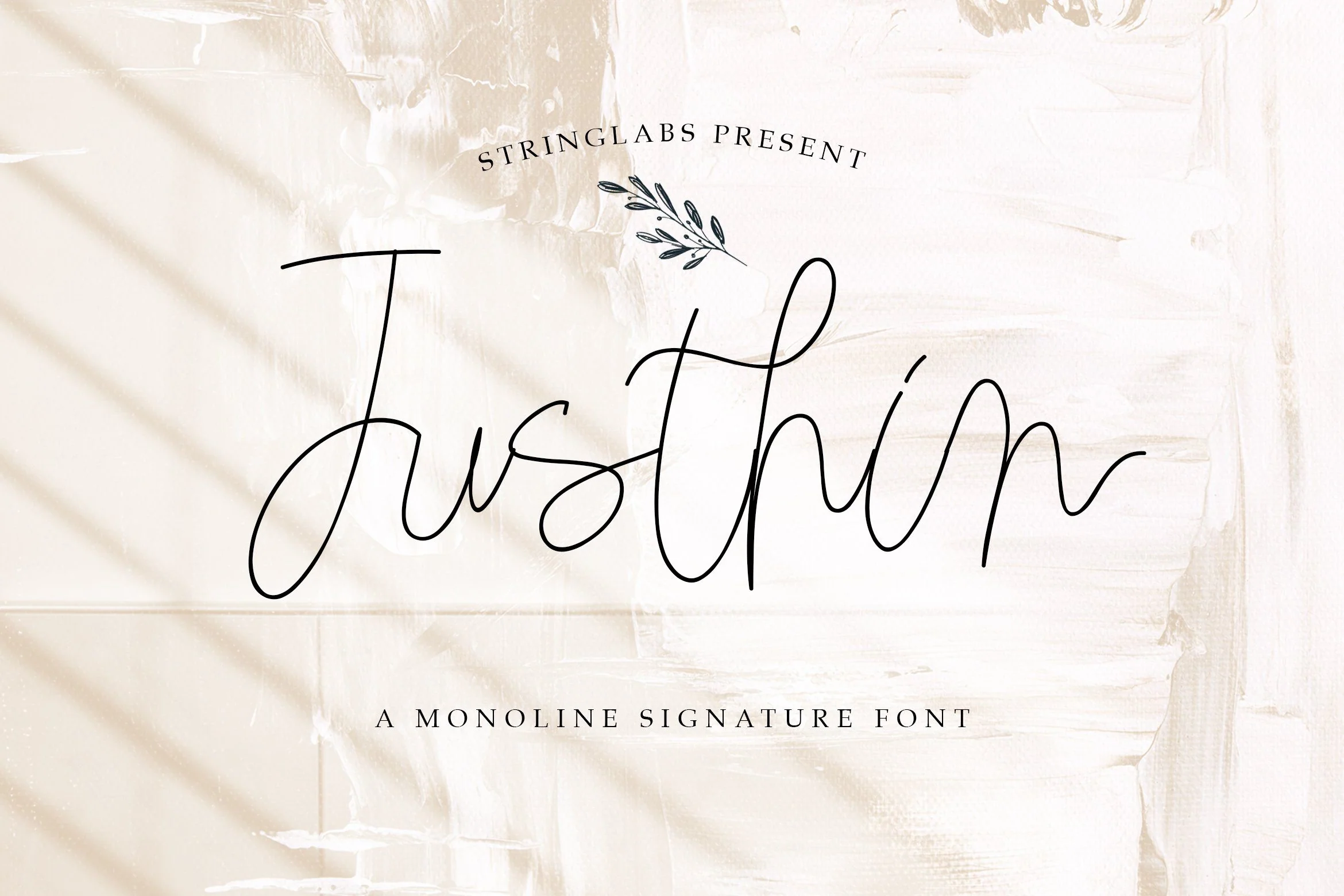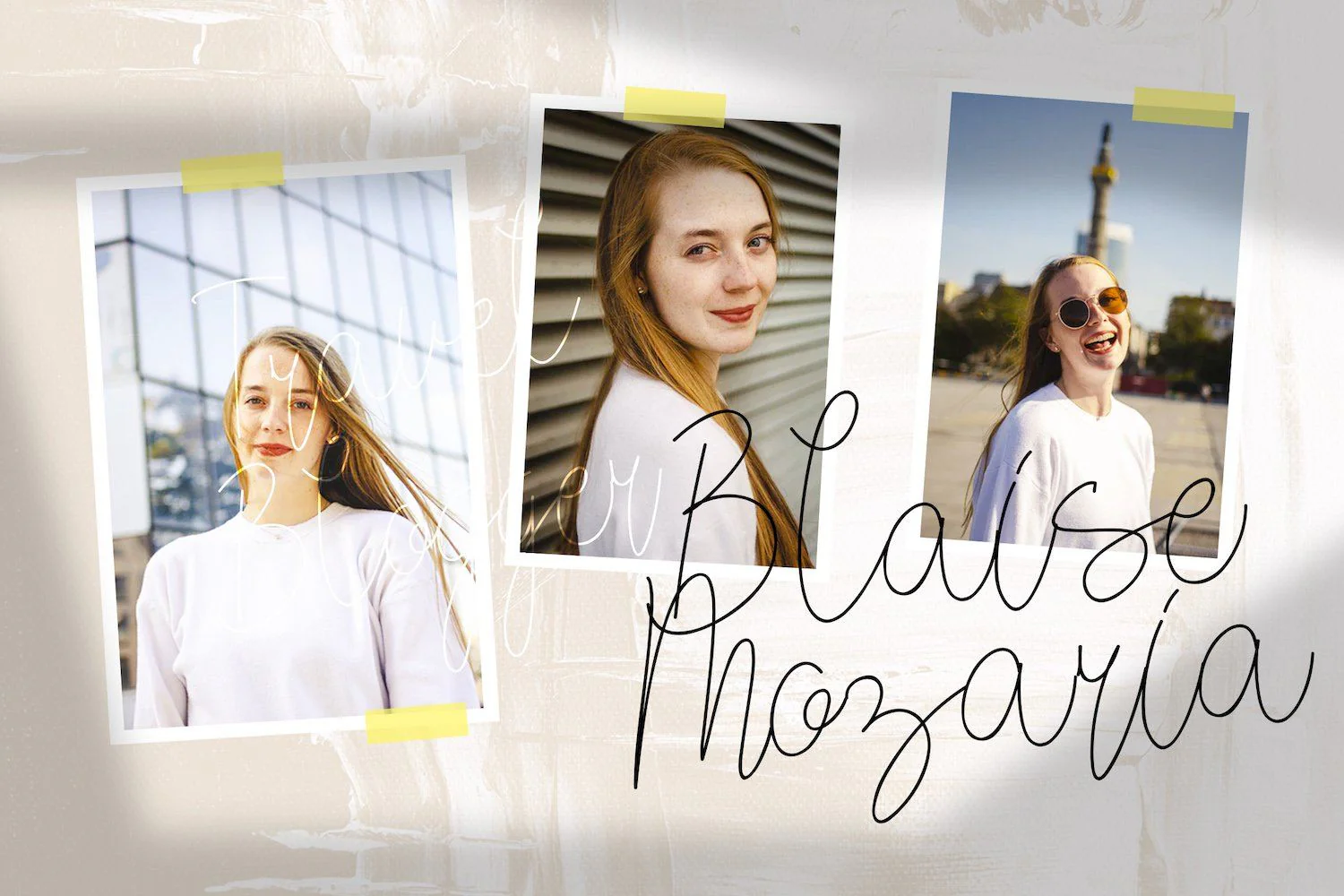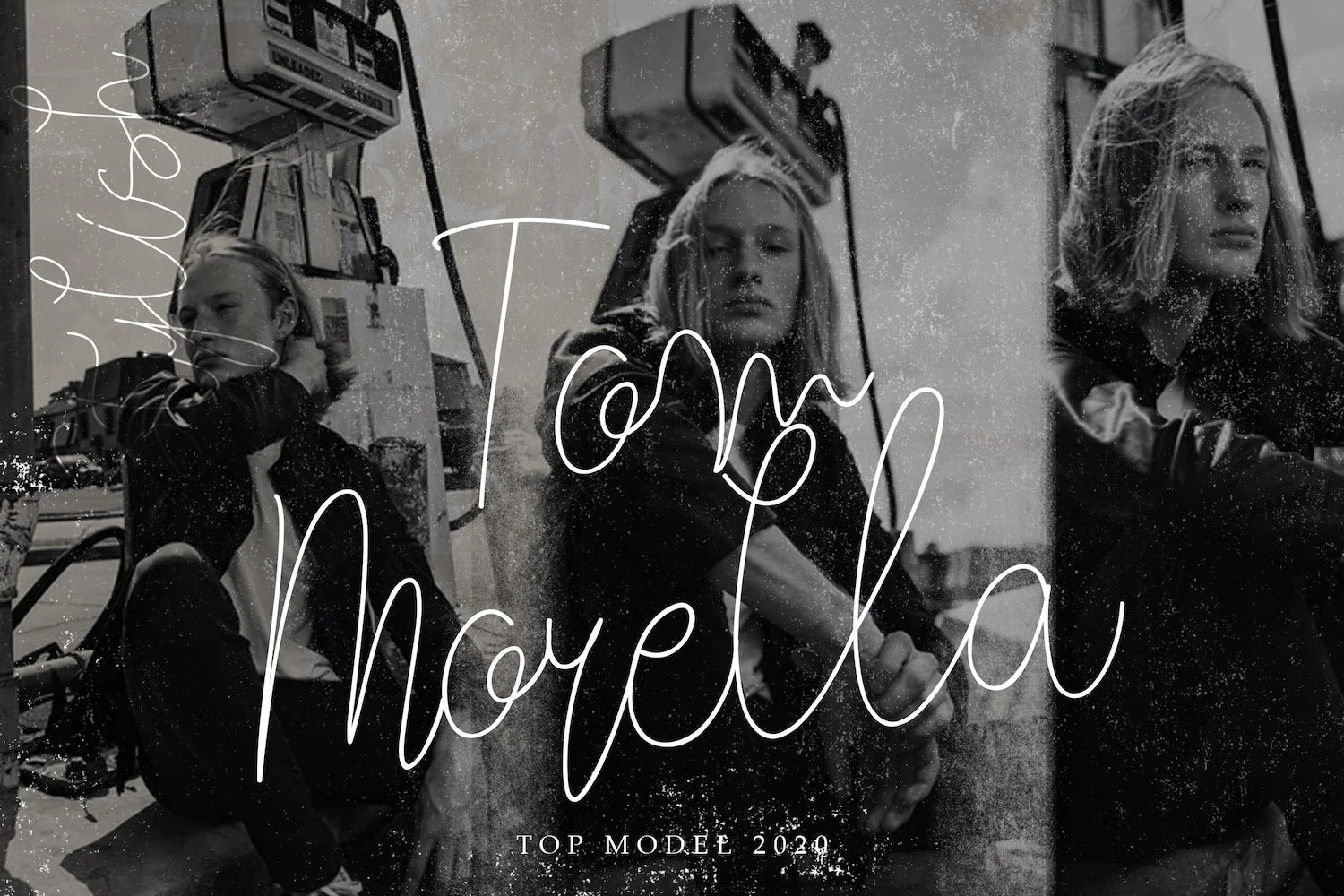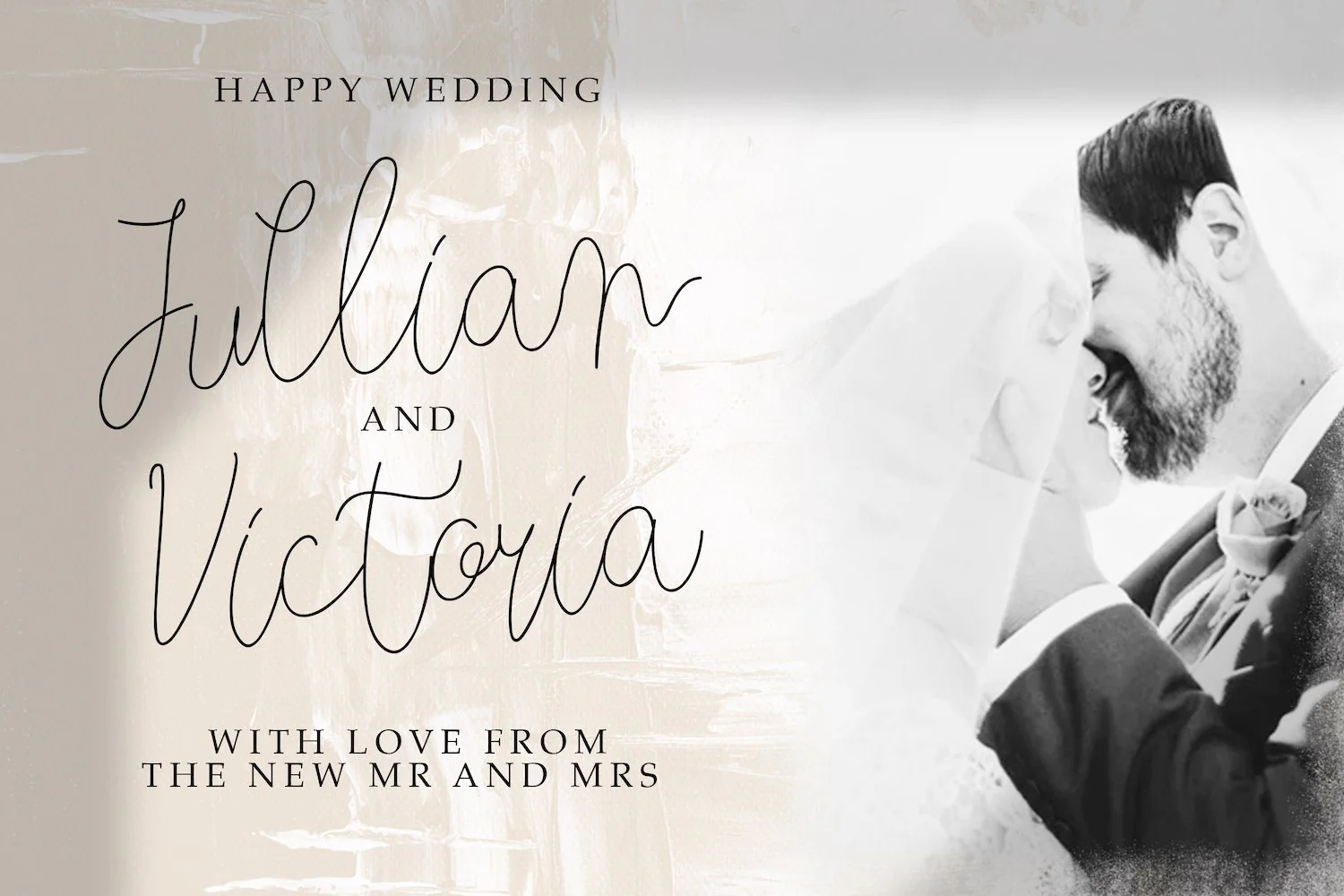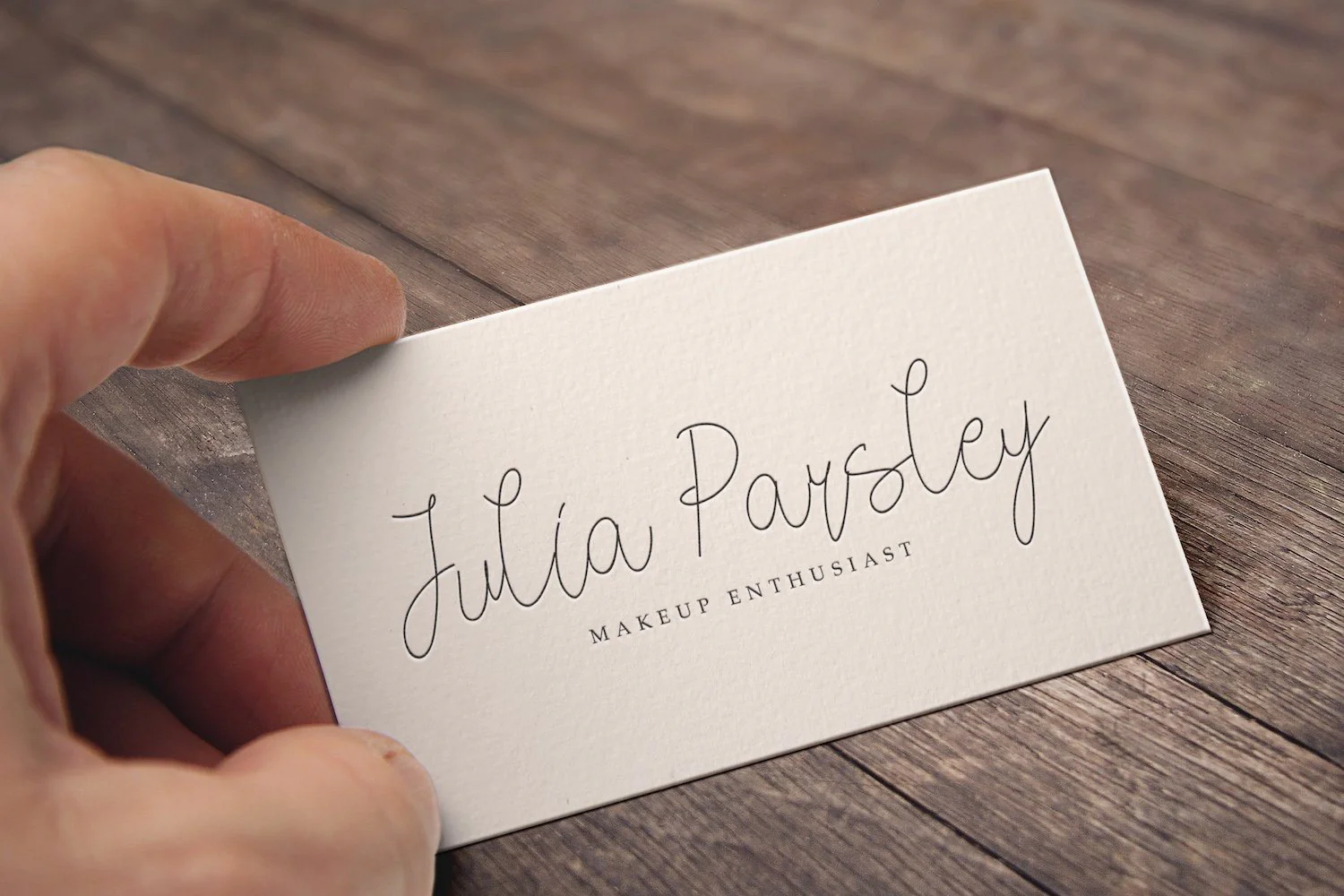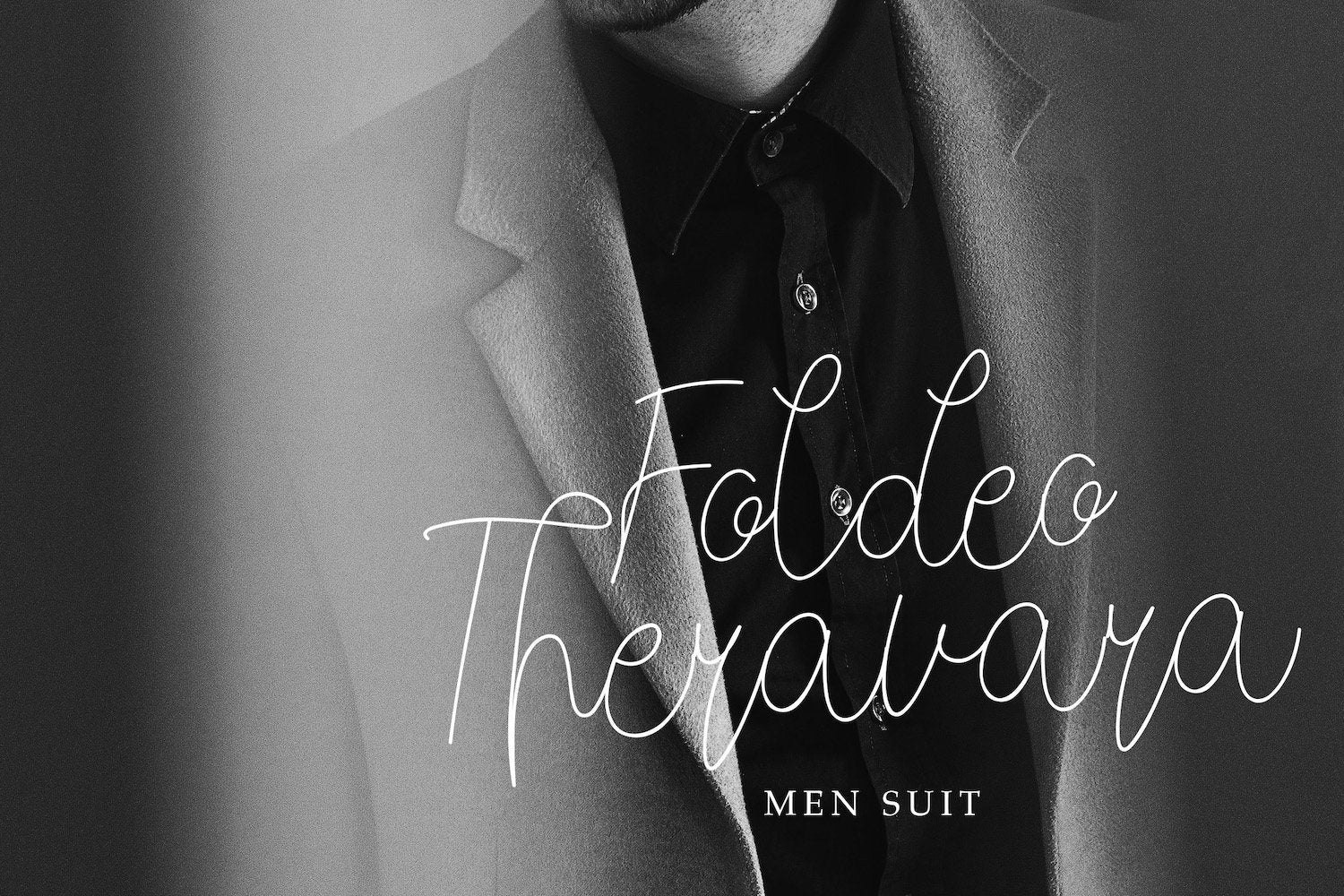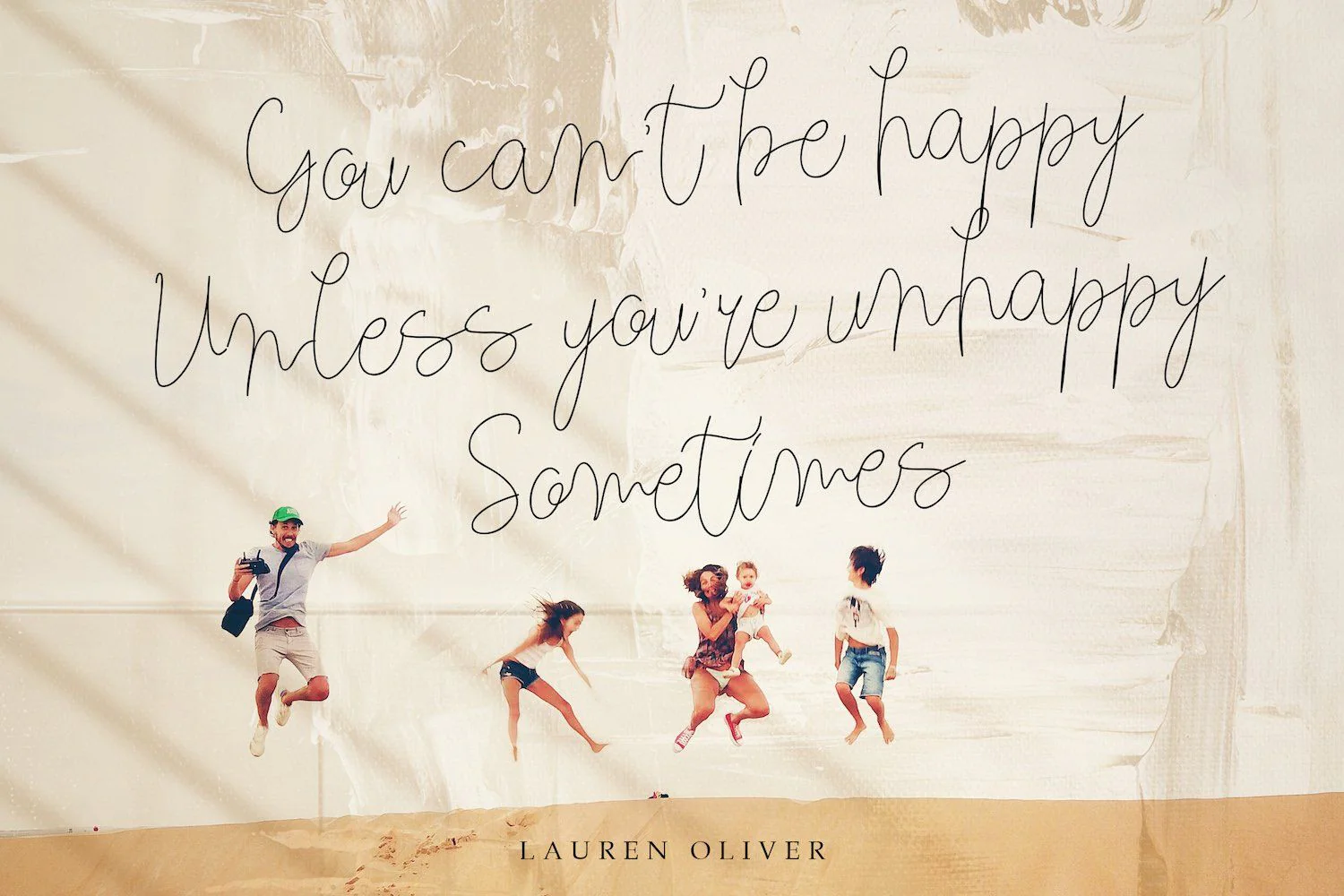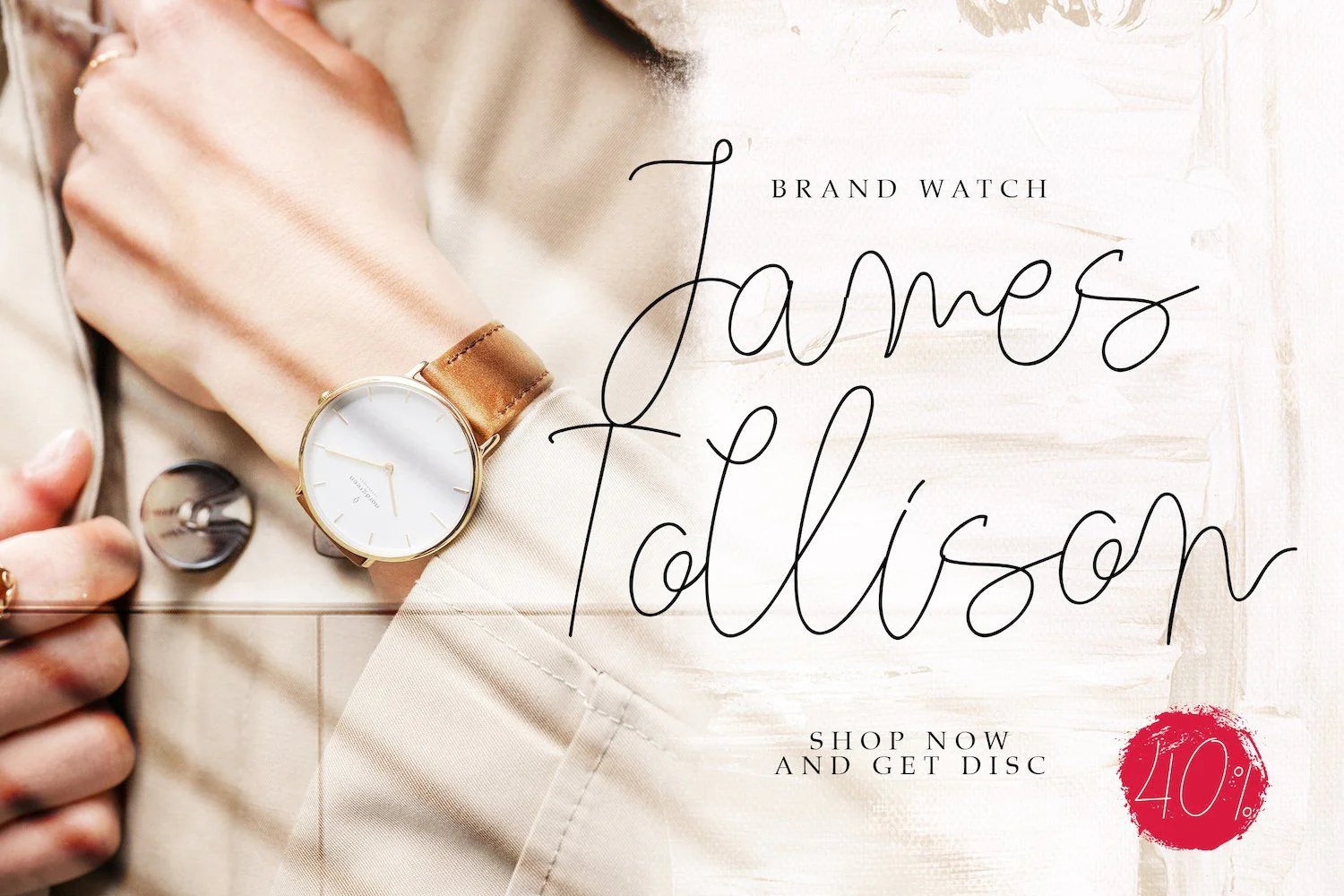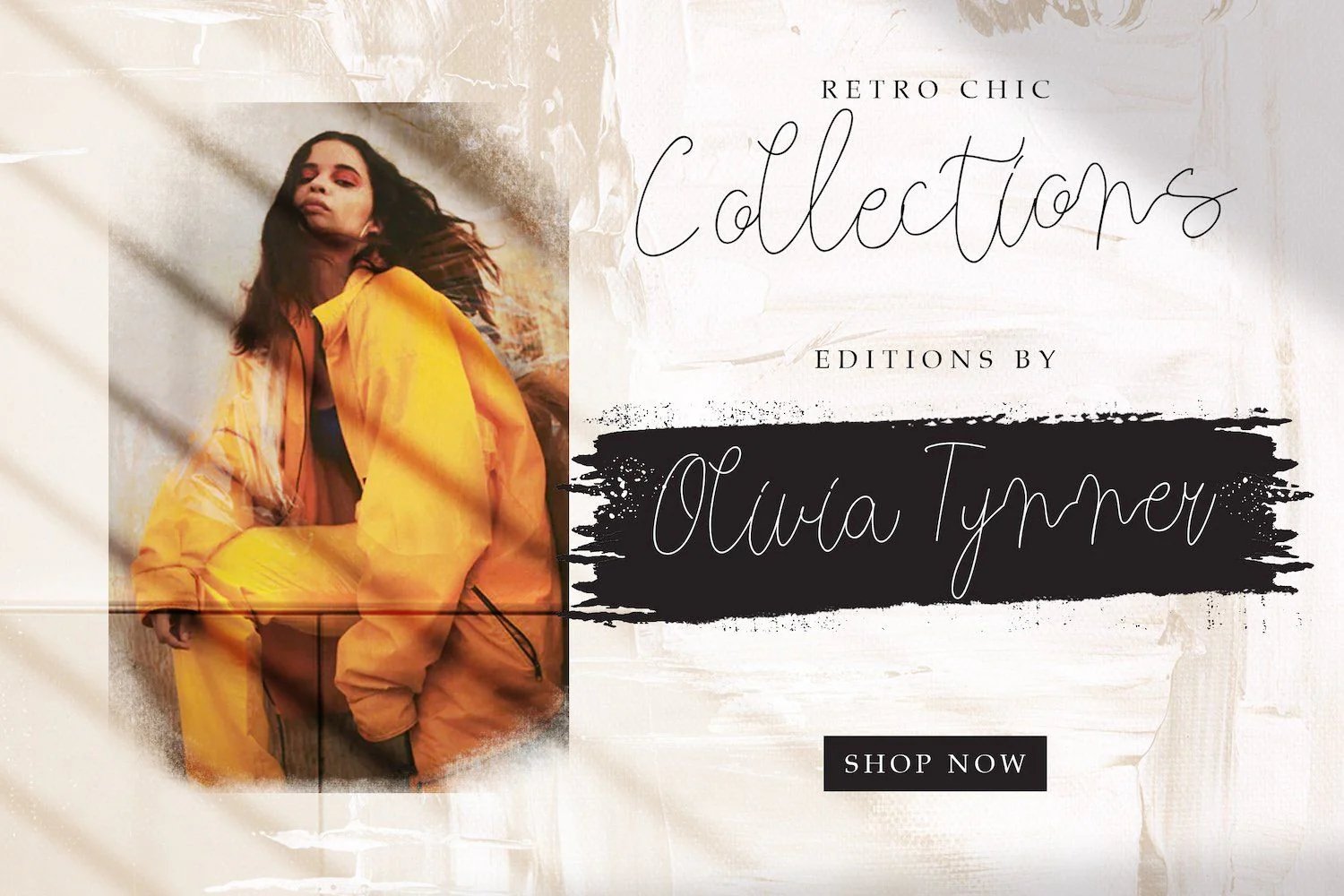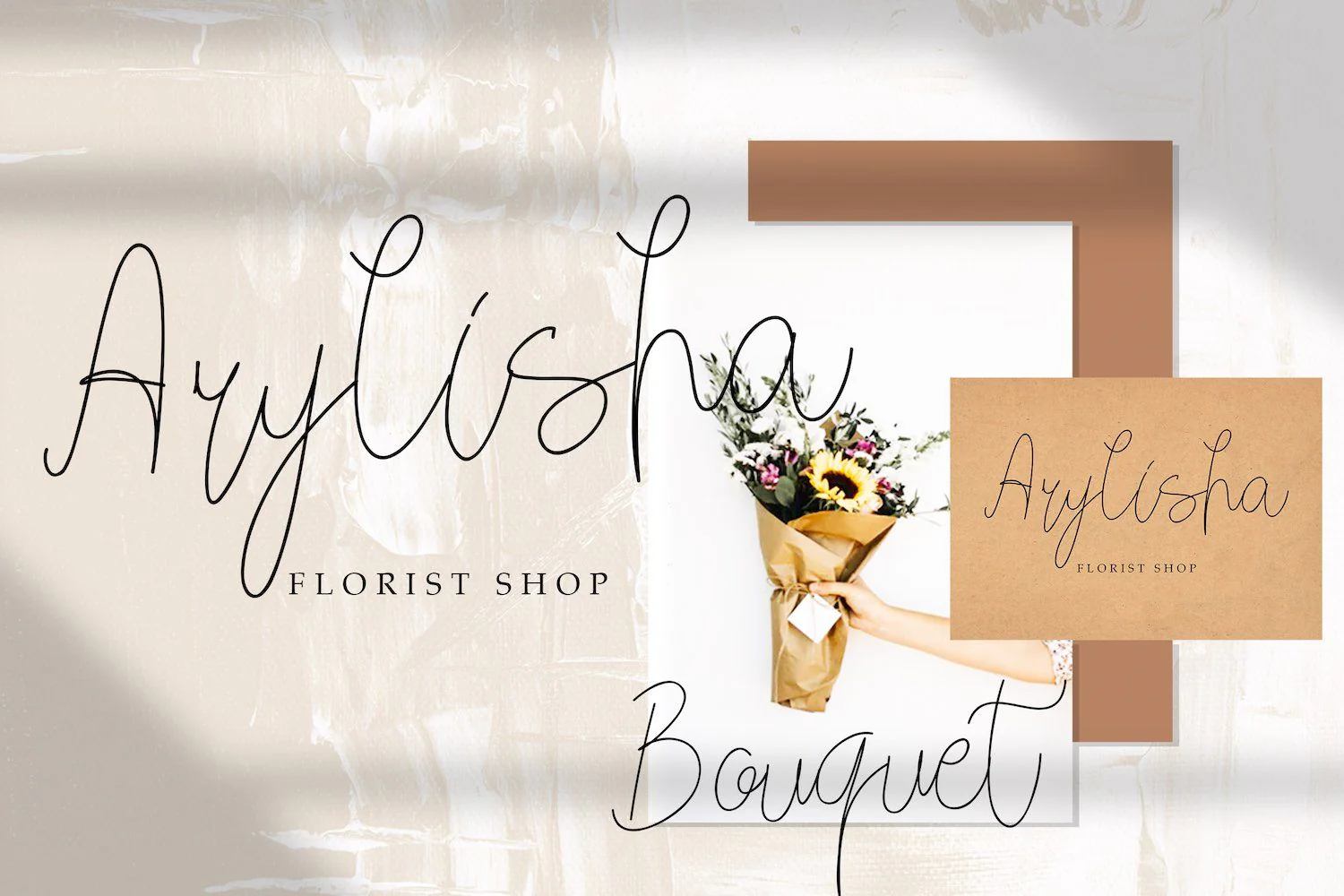
Justhin - Monoline Signature Font
Introducing Justhin - Monoline Signature Font
Justhin is a Monoline Script Font with elegant signature style. The Justin font has a casual, elegant look, and has a good readability. It can be incorporated into many designs including quotes texts, wedding invitations, posters and you can create custom cards to give to your friends and family.
Introducing Justhin - Monoline Signature Font
Justhin is a Monoline Script Font with elegant signature style. The Justin font has a casual, elegant look, and has a good readability. It can be incorporated into many designs including quotes texts, wedding invitations, posters and you can create custom cards to give to your friends and family.